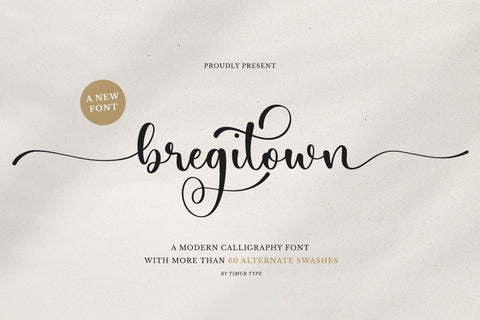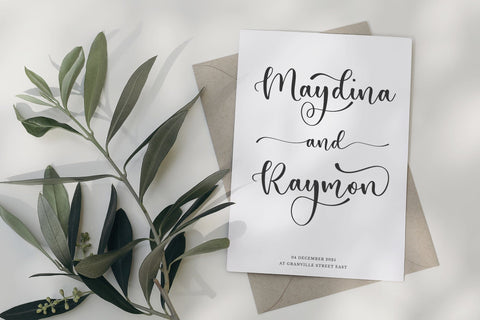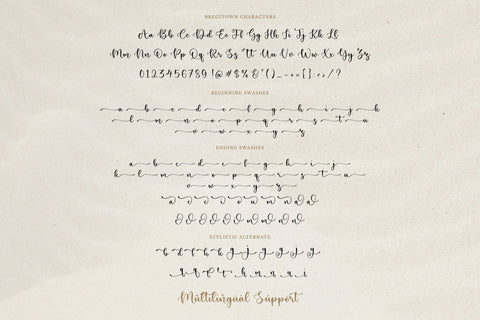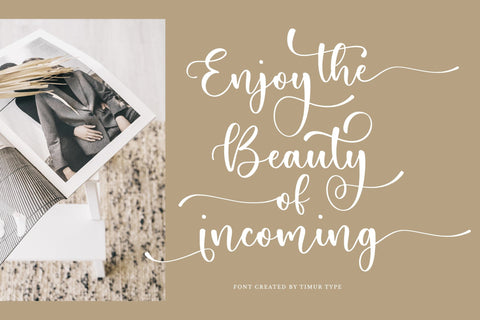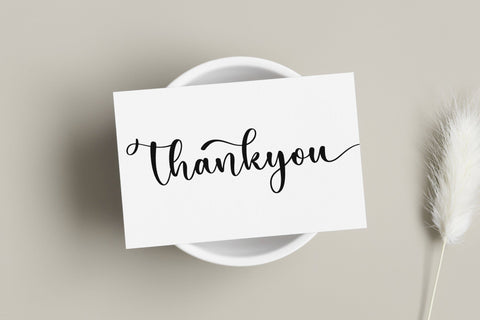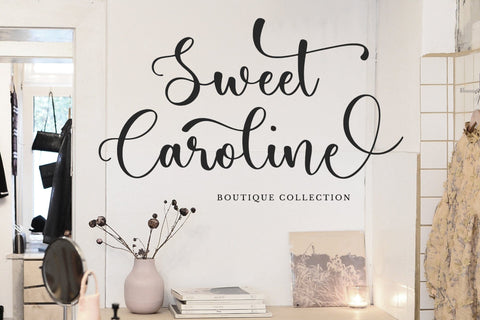
Bregitwon - Modern Calligraphy font
Introduced by Timur type
Proudly Present Bregitwon
Bregitwon is a Modern Calligraphy font that is modern and fresh, and will bring a warm and inviting feel to your business. Take advantage of the fonts and experience the magic for yourself.
Bregitwon is perfect for product packaging, branding project, megazine, social media, wedding, or just used to express words above the background.
Bregitwon also multilingual support.
Bregitwon Font Features premium :
-Full Set of standard alphabet and punctuation
- Ligature
- stylistic Alternate
- Beginning swash
- Ending swash